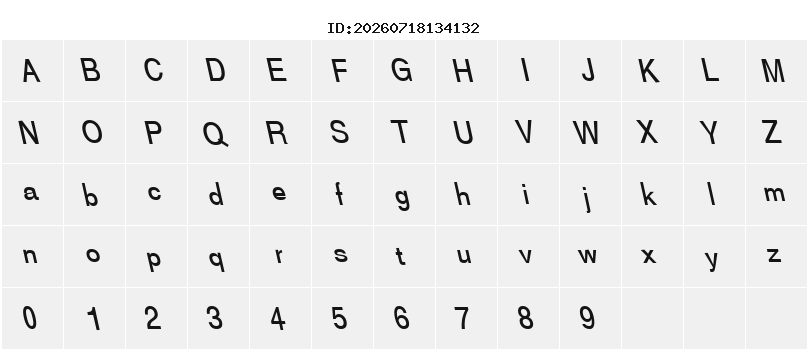
Caracal Backslant.ttf is a modern, elegant sans-serif font designed for ultimate readability and visual harmony. Perfect for branding, headlines, web design, and print materials.